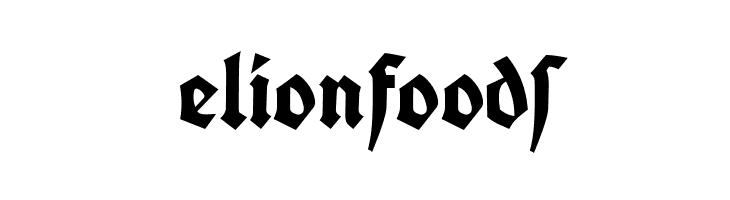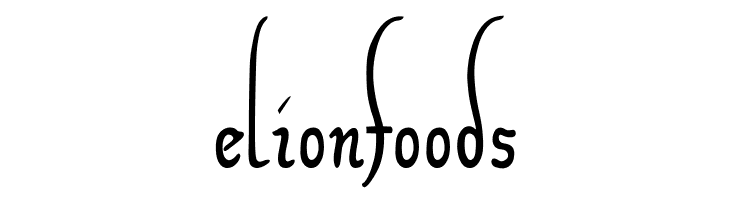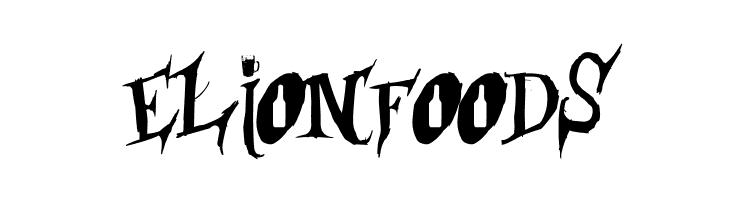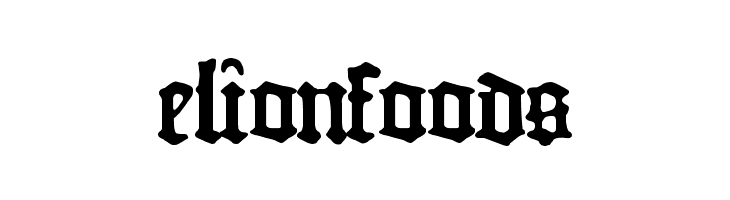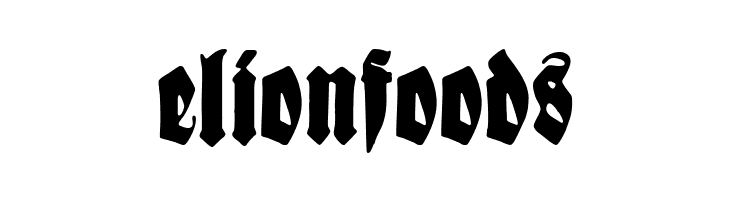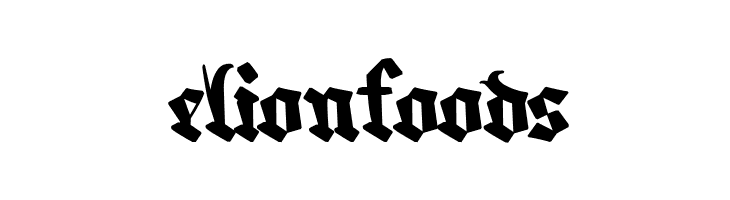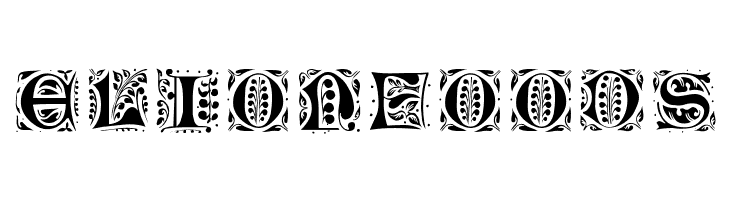
A bold Blackletter font with angular strokes and intricate detailing.
An artistic and whimsical font with elongated, flowing letterforms.
A bold, dynamic font with sharp, angular strokes and a rebellious, graffiti-like style.
A bold, ornate Blackletter font with intricate flourishes and a historical feel.
A bold, intricate Blackletter font with ornate, angular letterforms.
An ornate and decorative font with intricate flourishes and whimsical character shapes.
A classic blackletter font with ornate and intricate gothic letterforms.